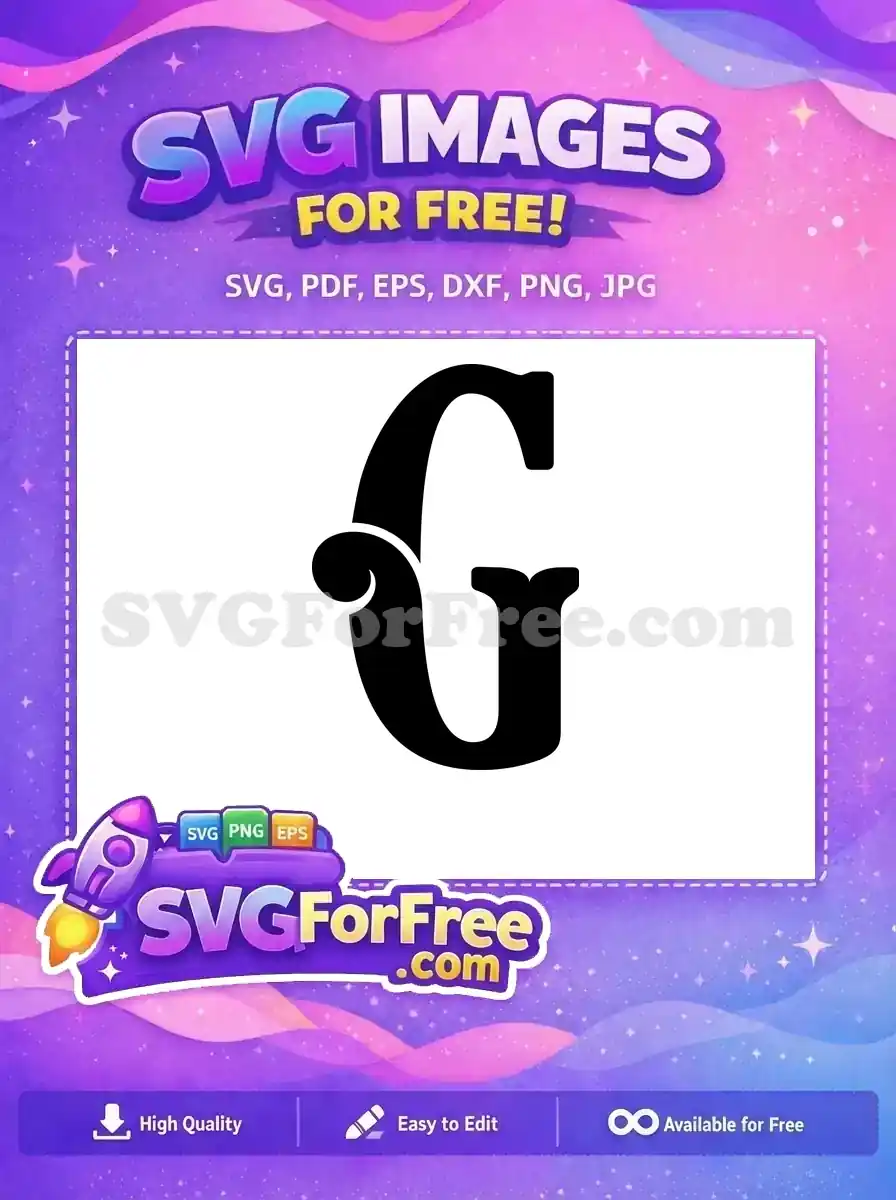
Free Letter G Font Free Joker Initial Free SVG – Instant Download
A bold letter G with a decorative flourish on its upper left side. A stylish, no-cost typographic element.
Free Letter G Font Free Joker Initial Free SVG